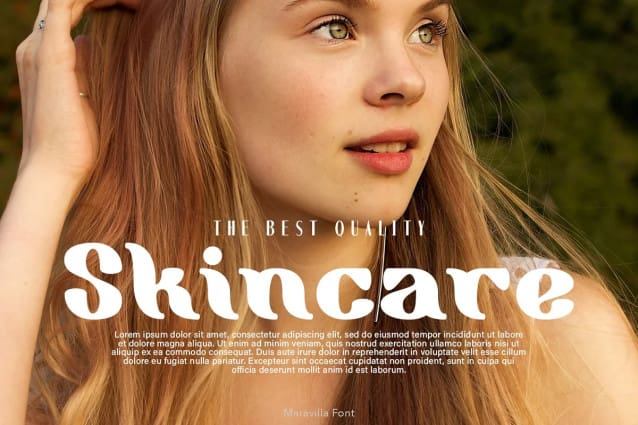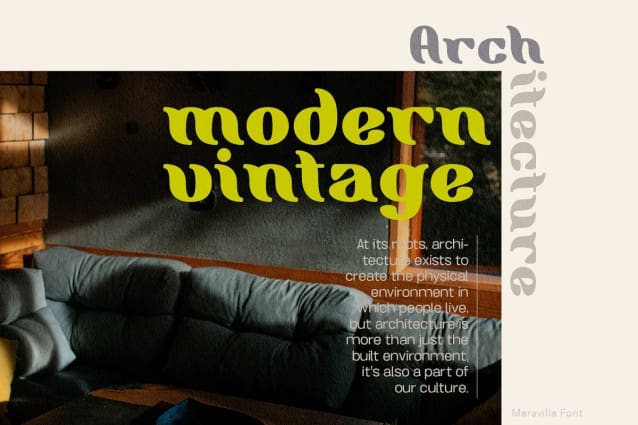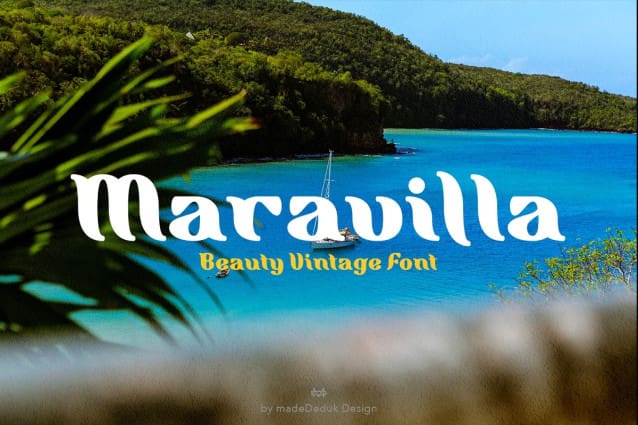
Maravilla Display Font
Maravilla Display Font, is a vintage font, come with single weight, legible and expressive shapes. A lot of stylish alternates characters will makes this font suitable for your any project design.